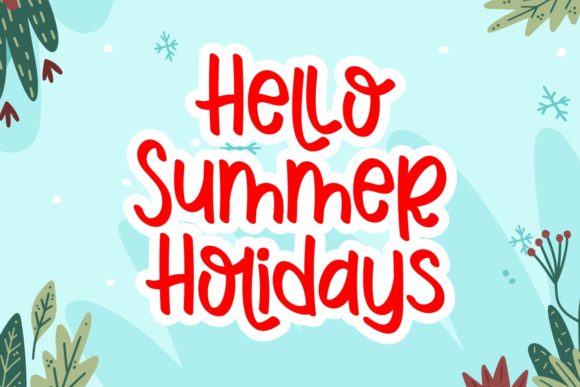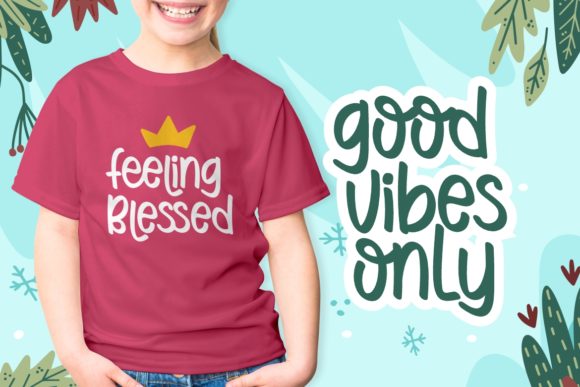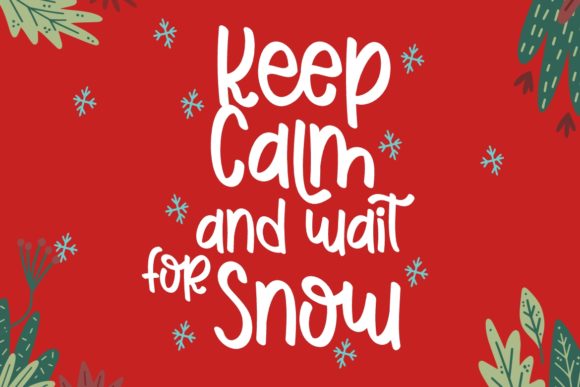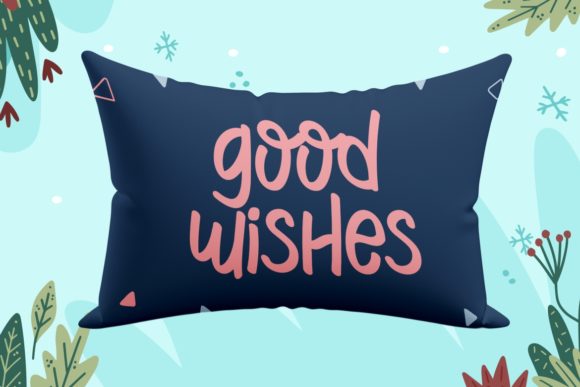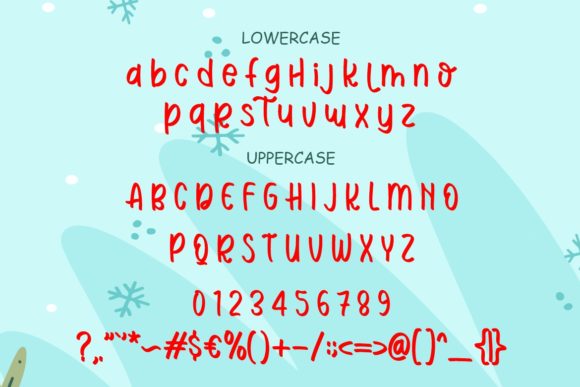
Hi Christopher Font
About Hi Christopher Font
Hi Christopher is a cute and quirky handwritten font. It will add an incredibly joyful touch to your designs. This font is perfect for quotes, shirt designs, websites, branding, logos, invitations and more!